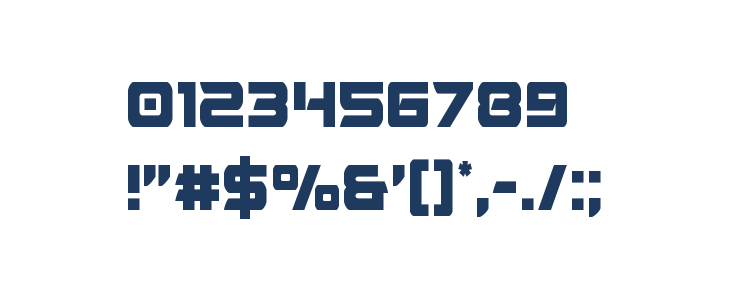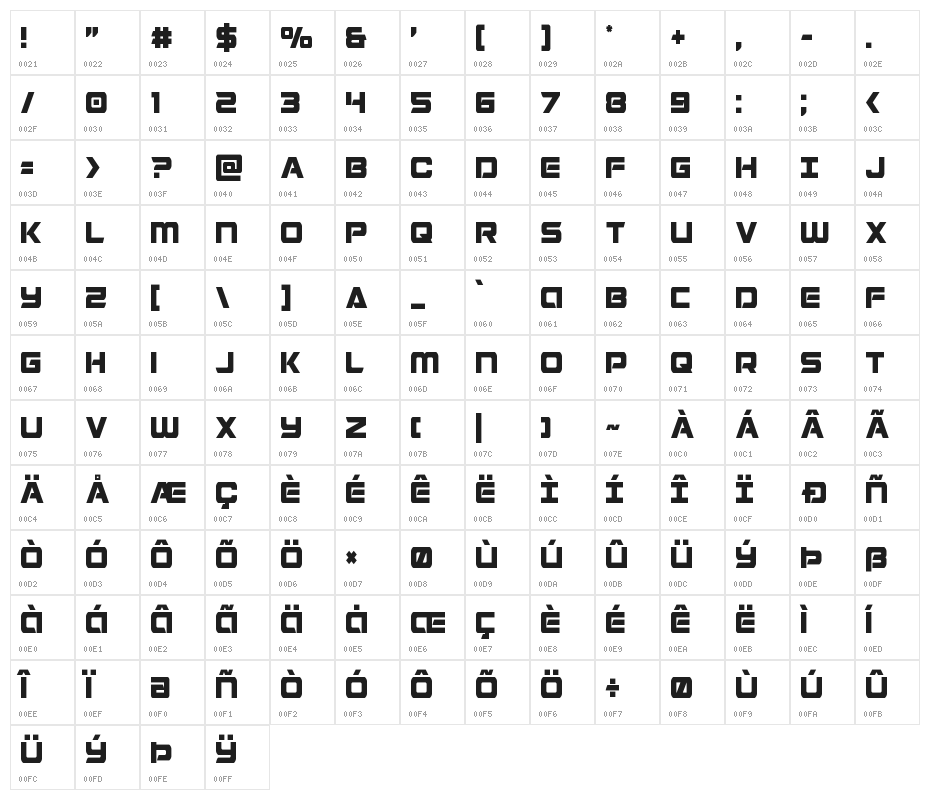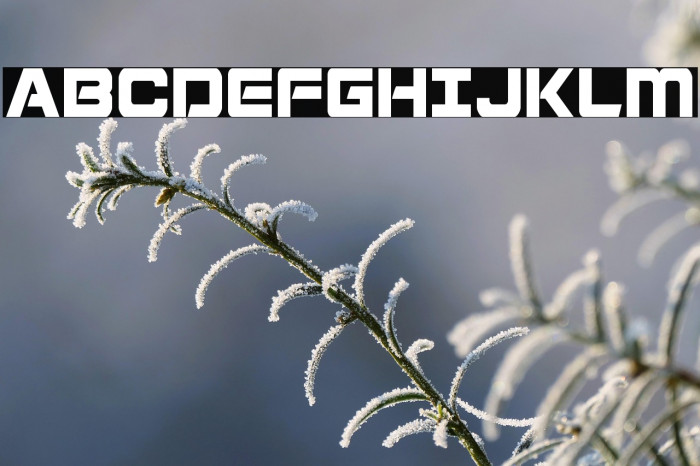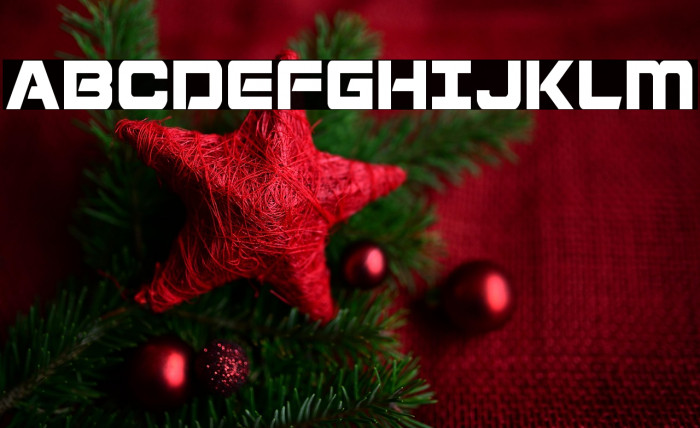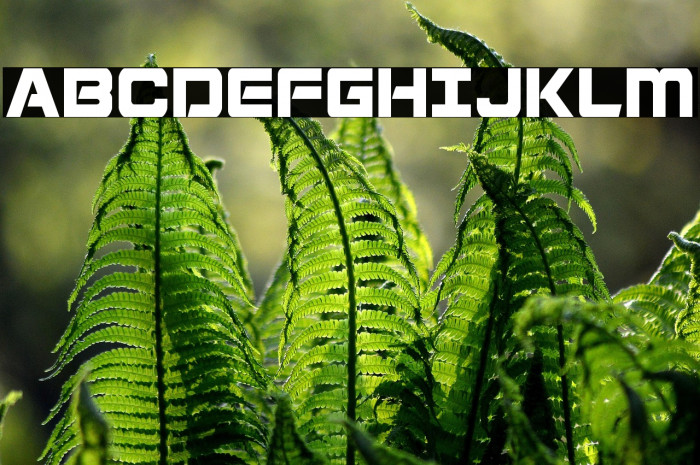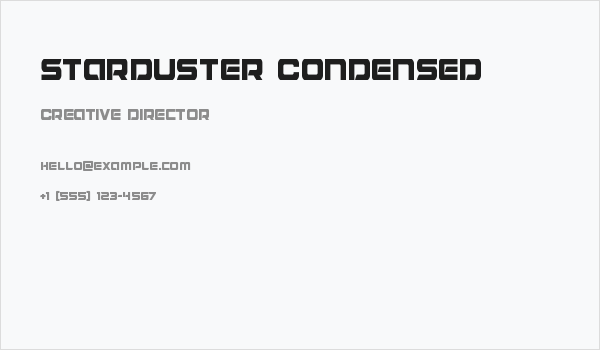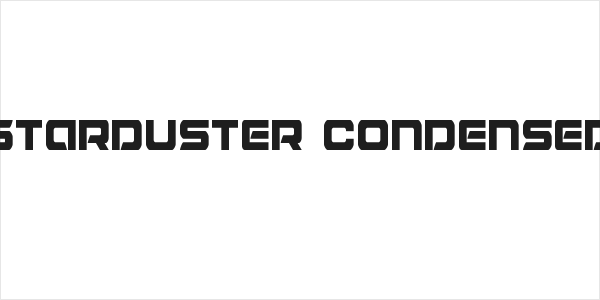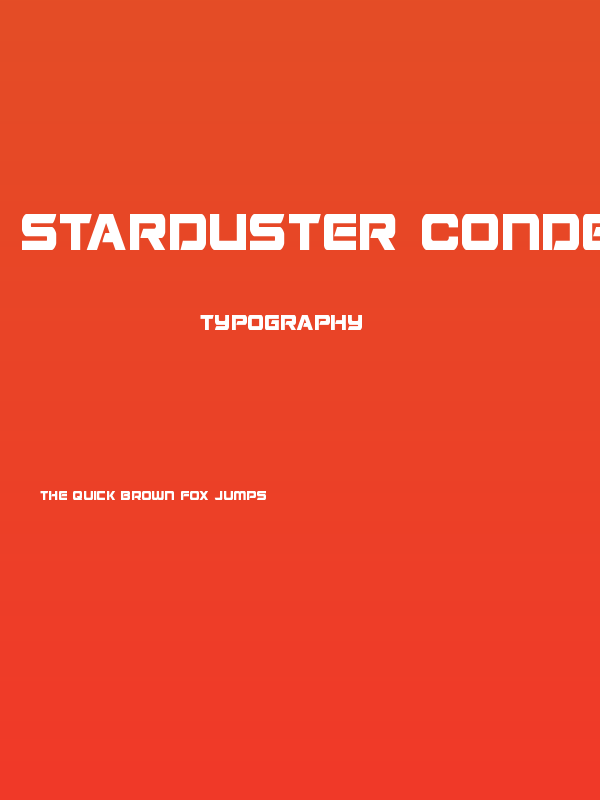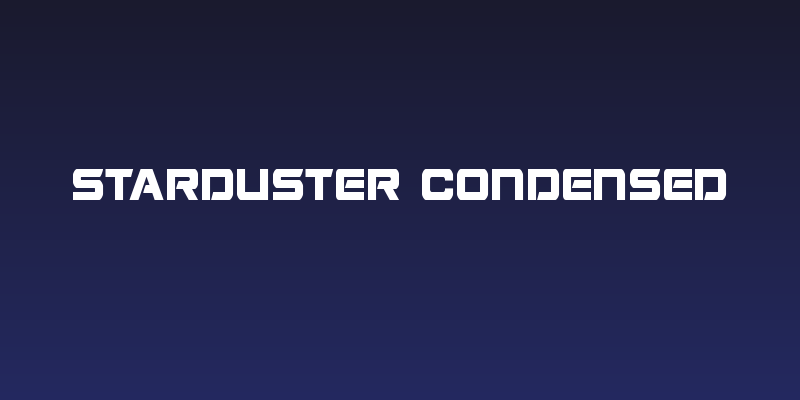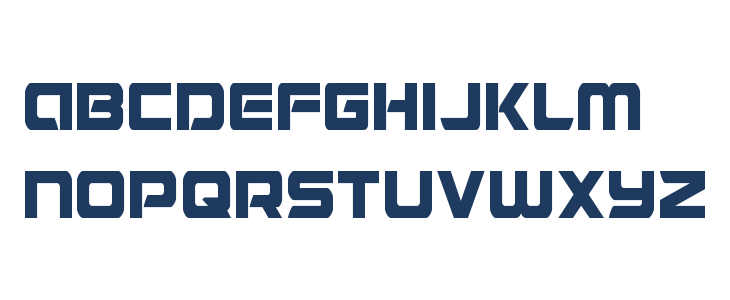
Starduster Condensed Font
Starduster Condensed Description
This font features a bold, geometric design with a futuristic flair. The characters are condensed, giving it a compact appearance that is both modern and dynamic. The angular shapes and sharp edges create a sense of movement and energy, making it ideal for attention-grabbing headlines and titles. The uniform stroke width across all characters contributes to a cohesive and structured look, while the lack of serifs adds to its contemporary style. The font's distinctiveness is further enhanced by its unique character shapes, which stand out in any design context.
| Proposed Projects | Ideal for sci-fi themed posters, video game titles, tech branding, and futuristic event flyers. |